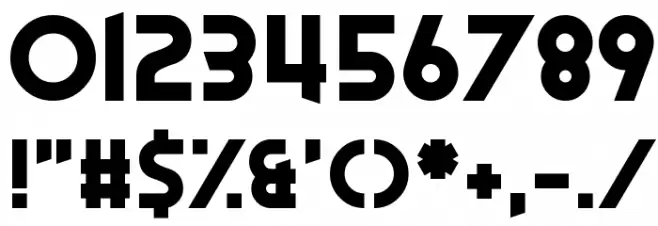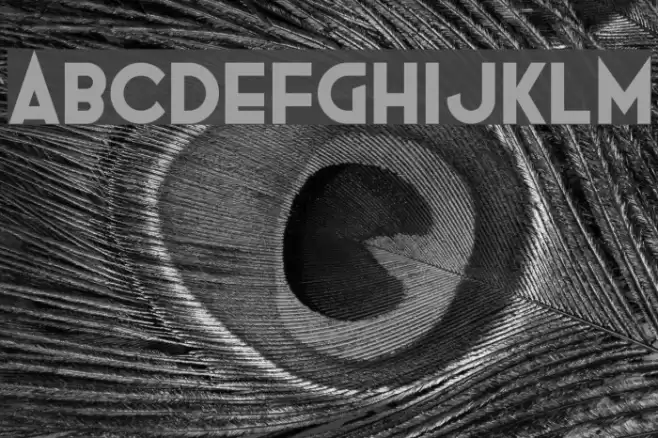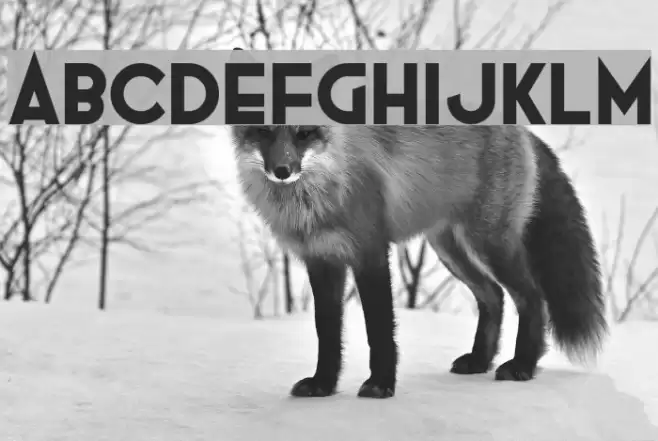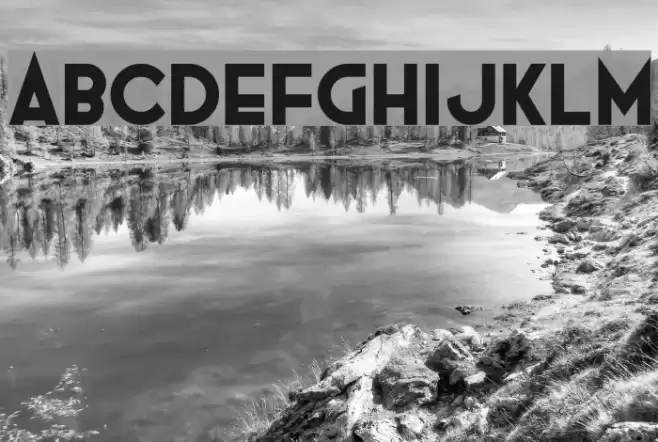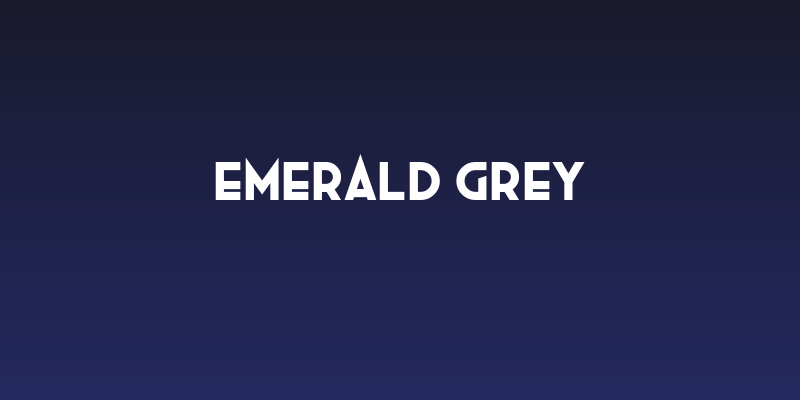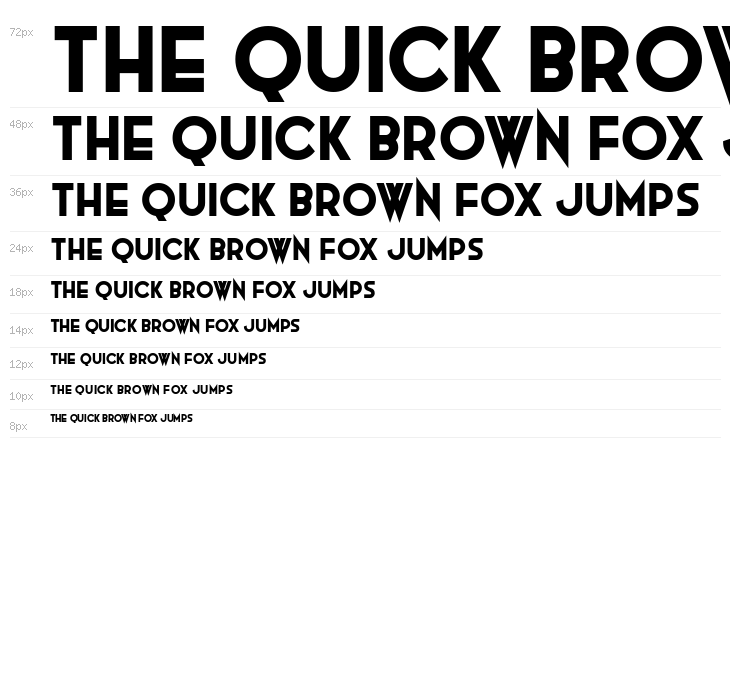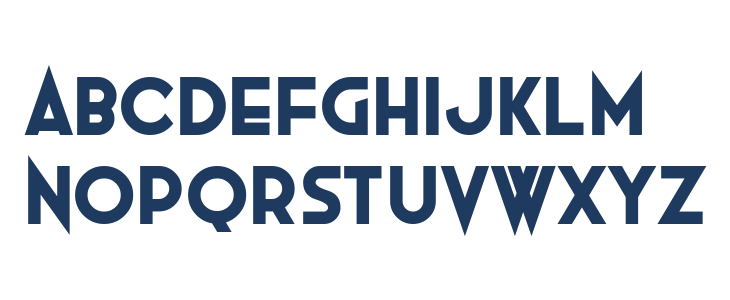
Emerald Grey Font
Emerald Grey Description
This font exhibits a bold and geometric style, characterized by its strong, angular lines and clean edges. The uppercase letters are uniform in height, creating a cohesive and structured appearance. The lowercase letters maintain the same boldness, with a slightly rounded touch that adds a subtle softness to the overall design. The numerals are equally bold, ensuring readability and consistency across different uses. Special characters are designed with the same geometric precision, making them stand out while remaining harmonious with the rest of the font. This font's modern aesthetic makes it suitable for contemporary design projects.
| Proposed Projects | Ideal for branding, headlines, posters, and digital media where a modern and impactful look is desired. |